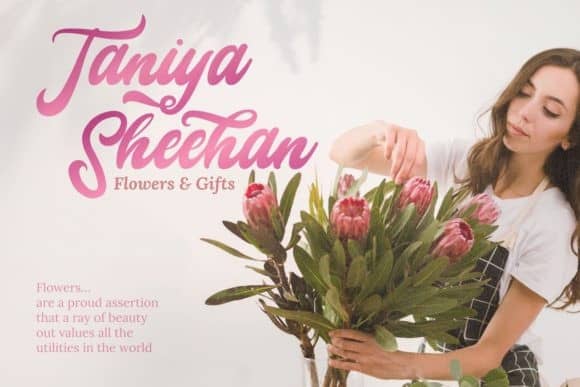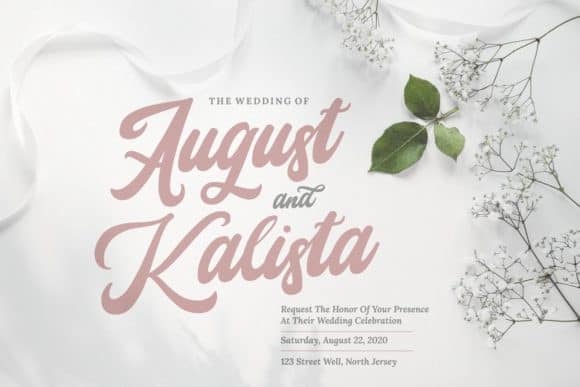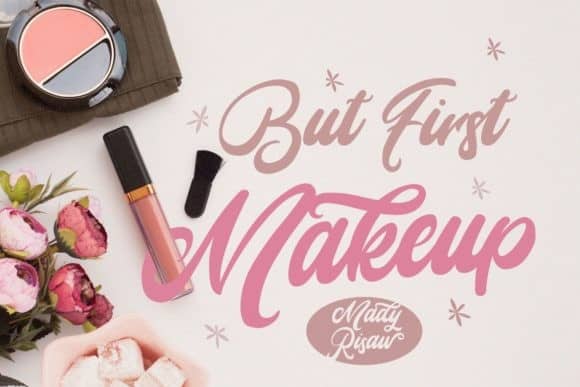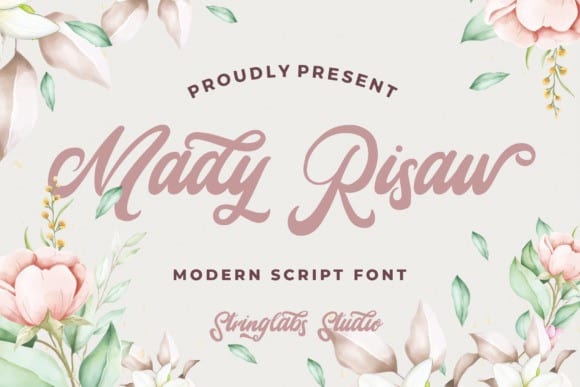
Mady Risaw Script Font
Mady Risaw Script Font is a handwritten piece in bold style. This well-designed font is inspired by classic typographic designs from the 60’s to 80’s. It’s designed and shared by StringLabs. This typeface is a delicate, elegant and flowing handwritten font. It has beautiful and well balanced characters and as a result, it matches a wide pool of designs. Add it to your most creative ideas and notice how it makes them come alive!